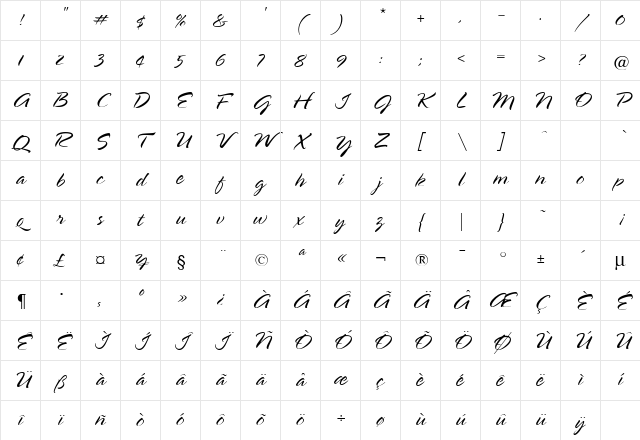
SpringLight Regular
Design Context for SpringLight
SpringLight is a composed and adaptable typeface that performs quietly and consistently across a wide range of design contexts. Its slender proportions lend an understated elegance to any composition.